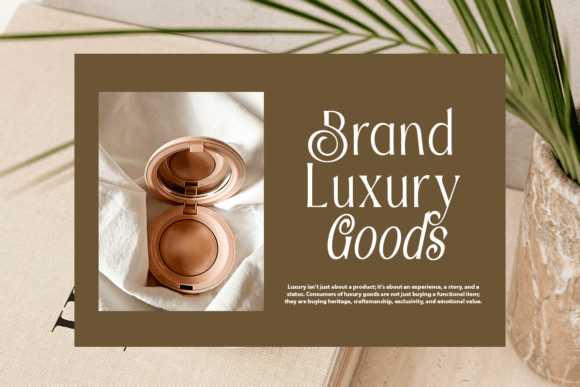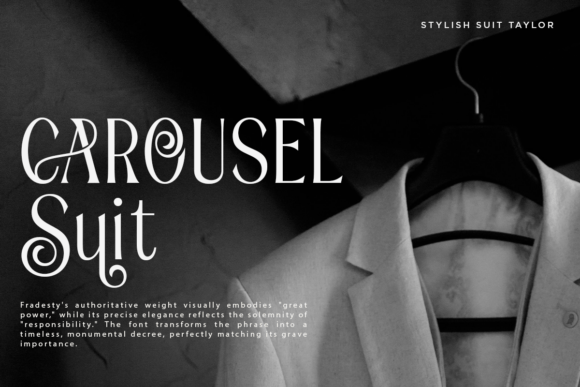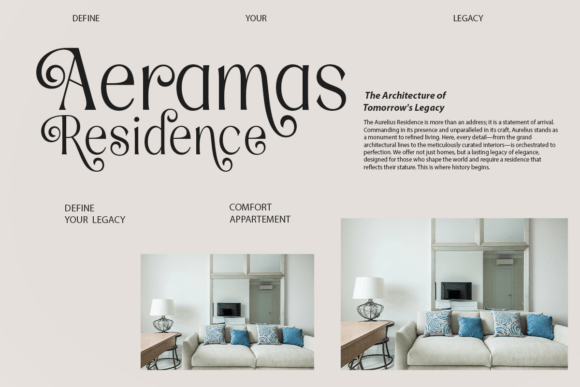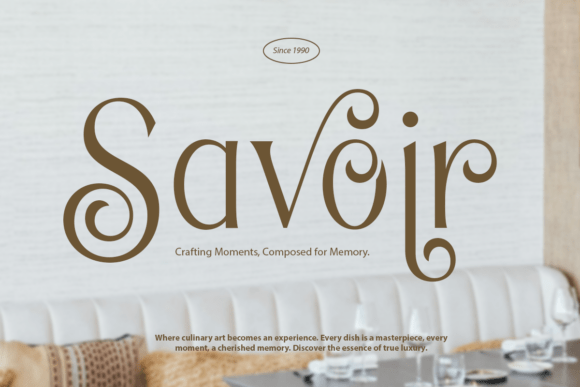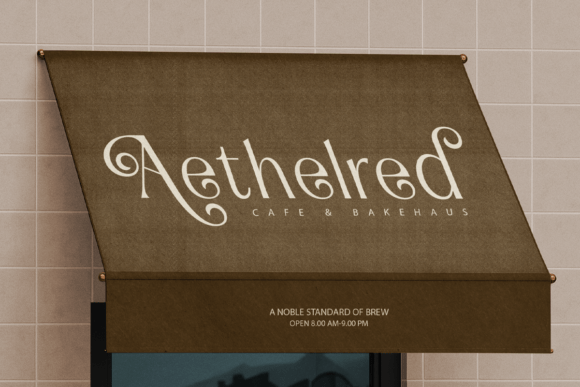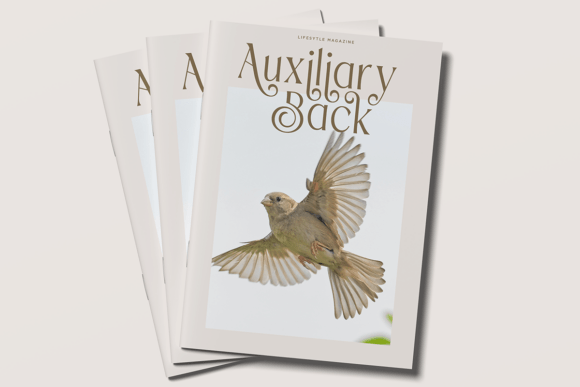
Introduction to Fradesty Font
Have you ever been working on a creative project and felt like you needed that one special font to bring your vision to life? I know I have – and that’s exactly what inspired me to dive into the world of luxury typography. There’s something about the right font that can elevate an entire design and leave a lasting impression. For me, that font is the stunning Fradesty Font, a true gem in the world of high-end typography.
As a designer, you know how valuable a high-quality design resource can be. A font like Fradesty Font can be the difference between a good design and a great one. With its elegant and commanding luxury serif style, Fradesty Font is perfect for those who want to make a bold yet classy statement in their creative project.
Key Features of Fradesty Font
- High-quality design resource suitable for creative projects, offering a unique and stylish aesthetic.
- Designed with precision and attention to detail, resulting in a crisp and clear resolution at 300 DPI.
- Perfect for designers looking for a distinctive and eye-catching font to elevate their creative project.
Honest Review: Fradesty Font
As a designer, I’m always on the lookout for high-quality design resources to elevate my creative projects. The Fradesty Font has caught my attention, and I’m excited to share my honest review.
- ✨ Unique and playful style that’s perfect for adding a touch of whimsy to designs
- ✨ Includes a range of weights and styles to suit different design needs
- ⚠️ Limited character set, which may not be ideal for extensive text-based designs
Overall, I’m impressed with the Fradesty Font’s potential to add a creative spark to designs. While it may not be perfect for every project, it’s a valuable resource for designers looking to experiment with new styles and ideas.
Fradesty Font
Tips for Getting the Most Out of Fradesty Font